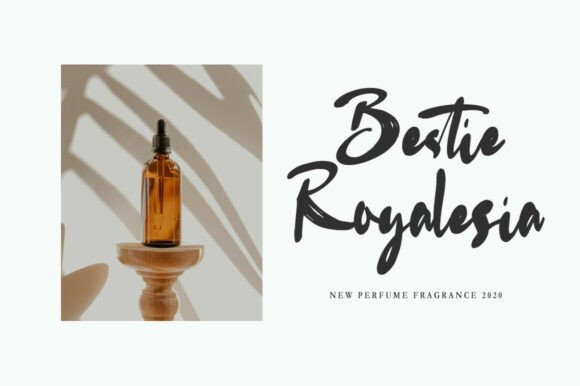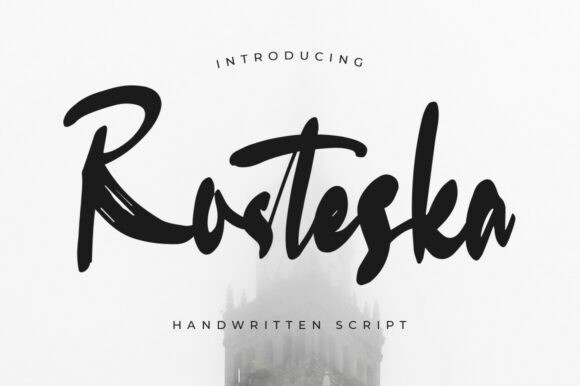
Rosteska Brush Font
Rosteska Brush Font, with its bold, dynamic strokes and flowing brush strokes, exudes elegance and confidence. The strokes are shaped with intentionally irregular lines, mimicking authentic handwriting, giving it a natural and expressive feel. The curves and contrast between thick and thin characters add interest and personality to each letter, making it a great choice for designers looking for a personal, handmade touch.
This font is perfect for a variety of creative projects, especially those that aim to grab attention and make a bold statement. It works particularly well for branding and logo design, packaging, social media posts, wedding invitations, magazine headlines, and merchandise. Whether used in large headlines or stylish overlays, Rosteska offers a unique touch that transforms ordinary text into visually compelling statements.